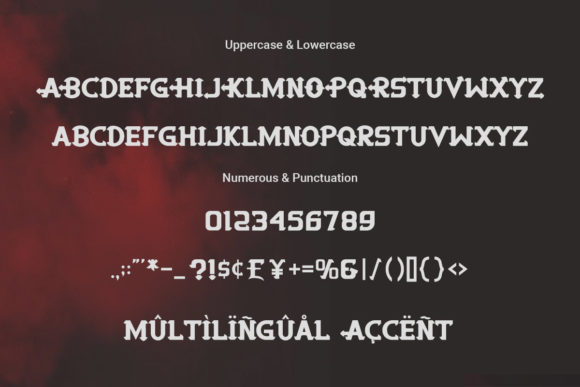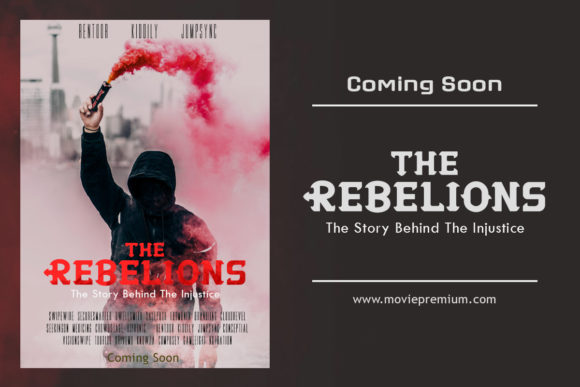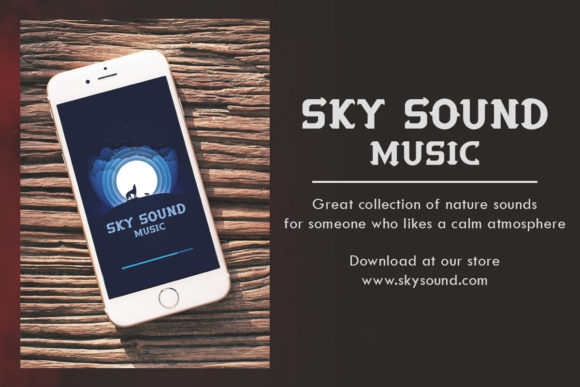
Introduction to Night Hunt Font
Night Hunt is a daring and genuine display font.
Irrespective of topic, this font will be an incredibly asset to your fonts’ library, as it has the potential to elevate any creation .
Key Features of Night Hunt Font
Why Choose Night Hunt Font?
Night Hunt Font offers exceptional quality and versatility, making it a valuable addition to your design toolkit. Whether you’re creating for personal projects or commercial use, Night Hunt Font delivers professional results.